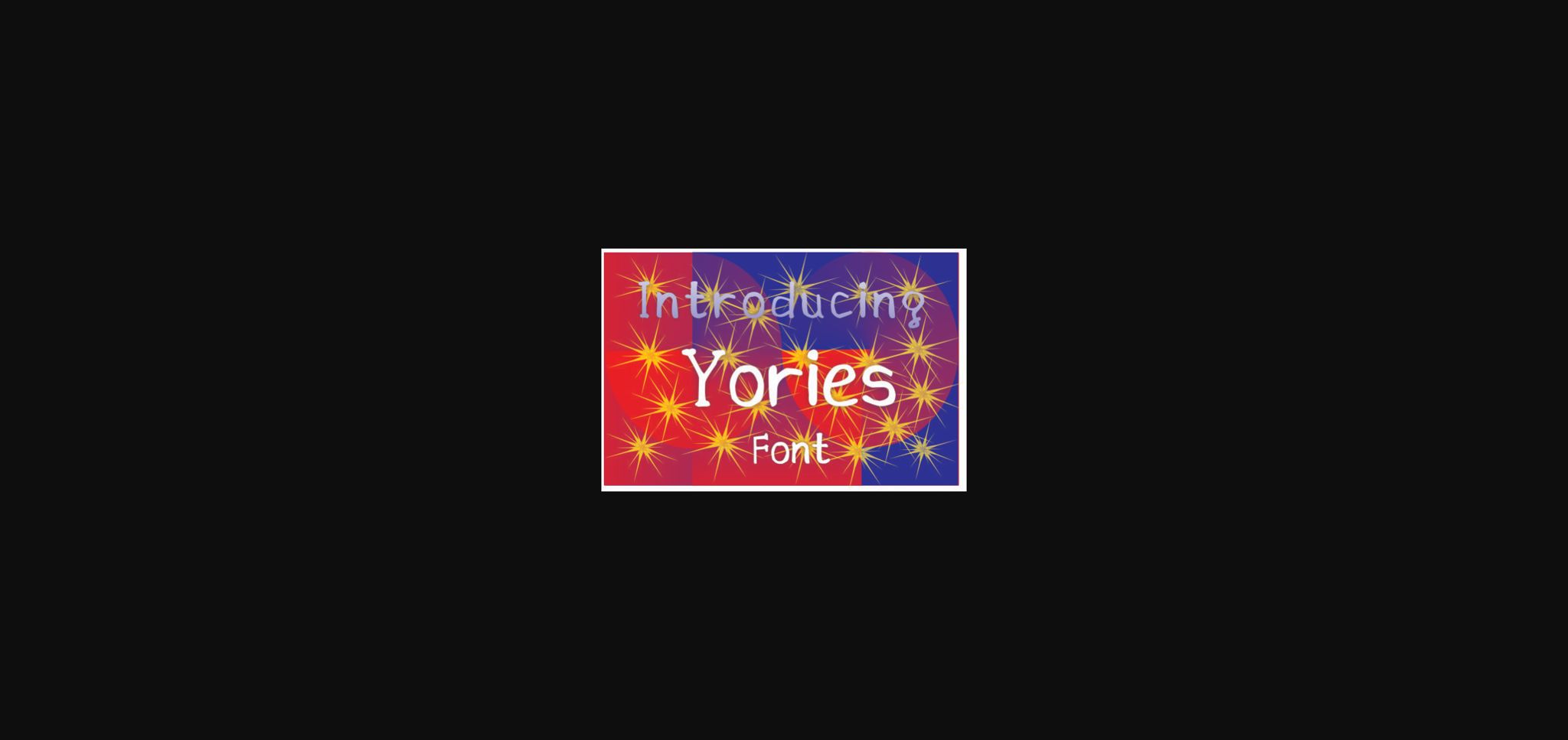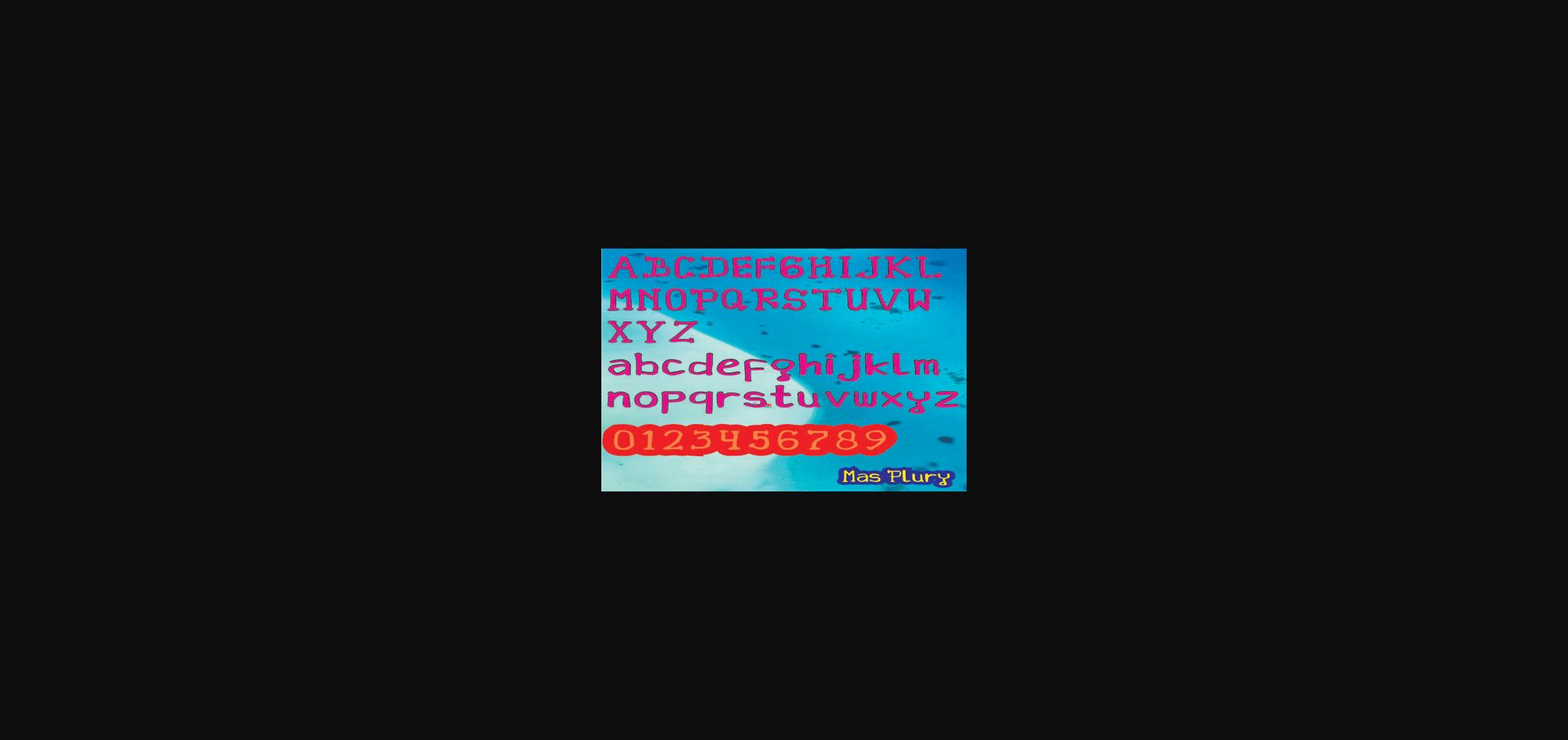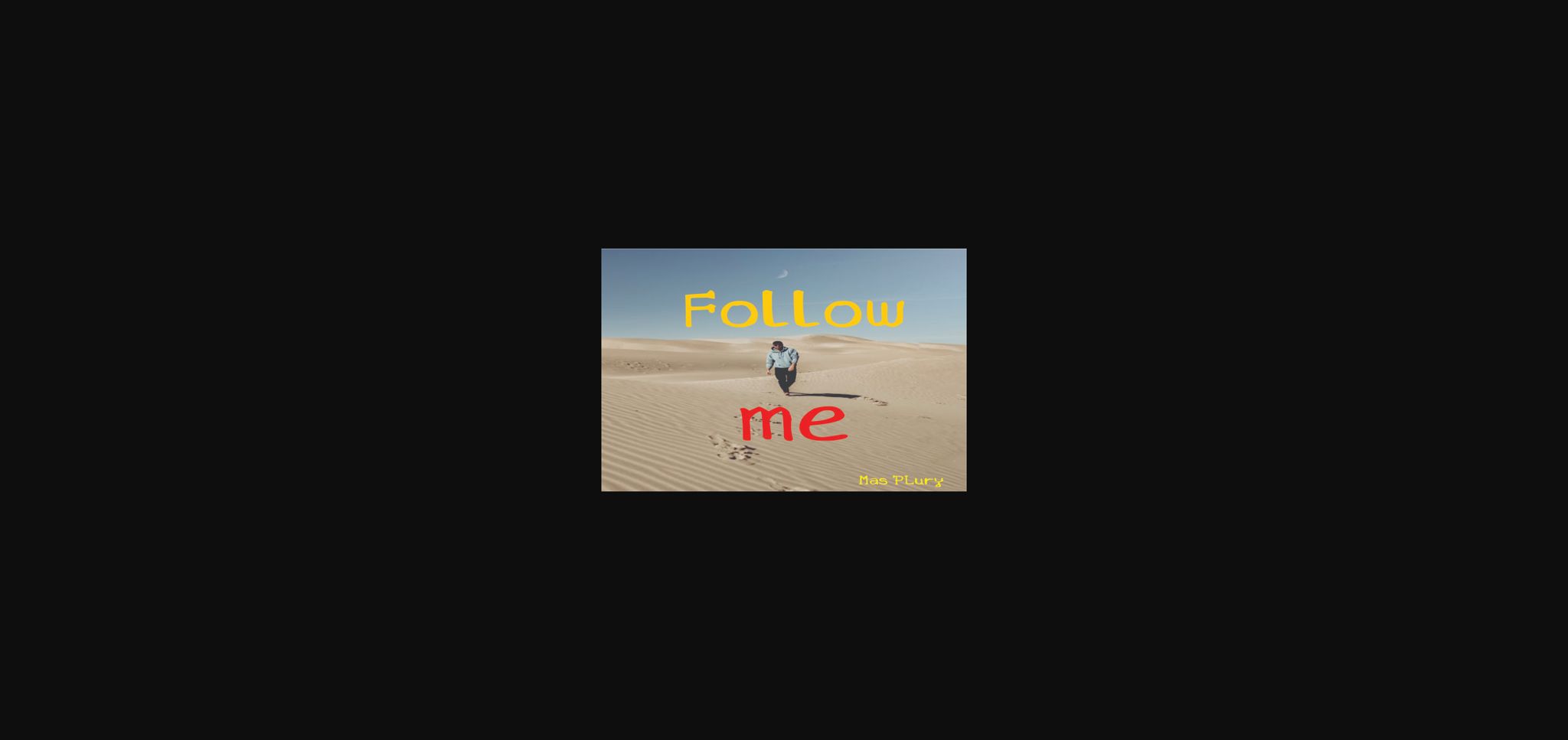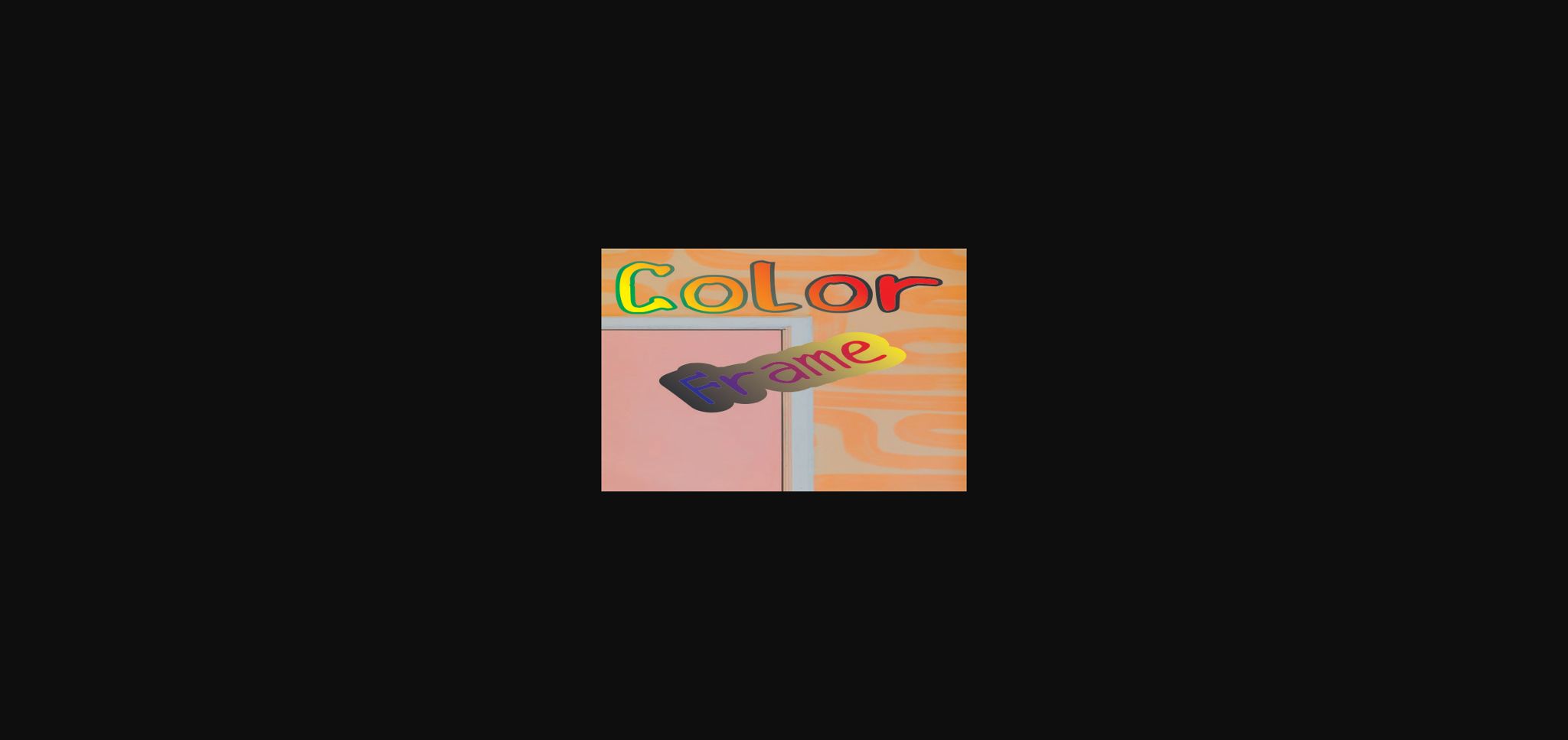
HomeSans Serif FontsYories Font Sans Serif Fonts Yories Font FacebookTwitterPinterestWhatsApp 1 of 6 ... Yories Font Poster 2... Yories Font Poster 3... Yories Font Poster 4... Yories Font Poster 5... Yories Font Poster 6... About Yories Font Yories is a cute and casual sans serif font with an incredibly friendly feel. Use this gorgeous and unique font to bring any DIY project to life! DOWNLOAD NOW 163 0 People also explored Bonza Font Oifa Font Fast Monk Ink Font Melissan Milda Letranilo Font Camila Font Monster Family Font Heather Cardinal Bella Canvas 3005 VNeck Revalina Font Melliya Font Texas Hero TagsYoriesYories Font Previous articleBurick FontNext articleMercuria Font LEAVE A REPLY Cancel reply Comment: Please enter your comment! Name:* Please enter your name here Email:* You have entered an incorrect email address! Please enter your email address here Website: Save my name, email, and website in this browser for the next time I comment. Unlock Endless Creativity with the FREE September Clipart Huge Bundle (Valued at $700!) Personal Use Free Satori Personal Use Free Read more Expaing Personal Use Free Read more Samureix Personal Use Free Read more Bigstone Personal Use Free Read more BLOG To increase your work productivity, choose the most readable fonts. In today's fast-paced work environment, where digital communication and information consumption are integral to our daily routines, the choice of fonts can significantly impact... Using Fonts in Digital Marketing: Tips to Strengthen Your Brand Identity Where to Buy American Fonts Online in 2024 Transform Your Website: Elevate Your Typography with 7 Best Web Font Generators